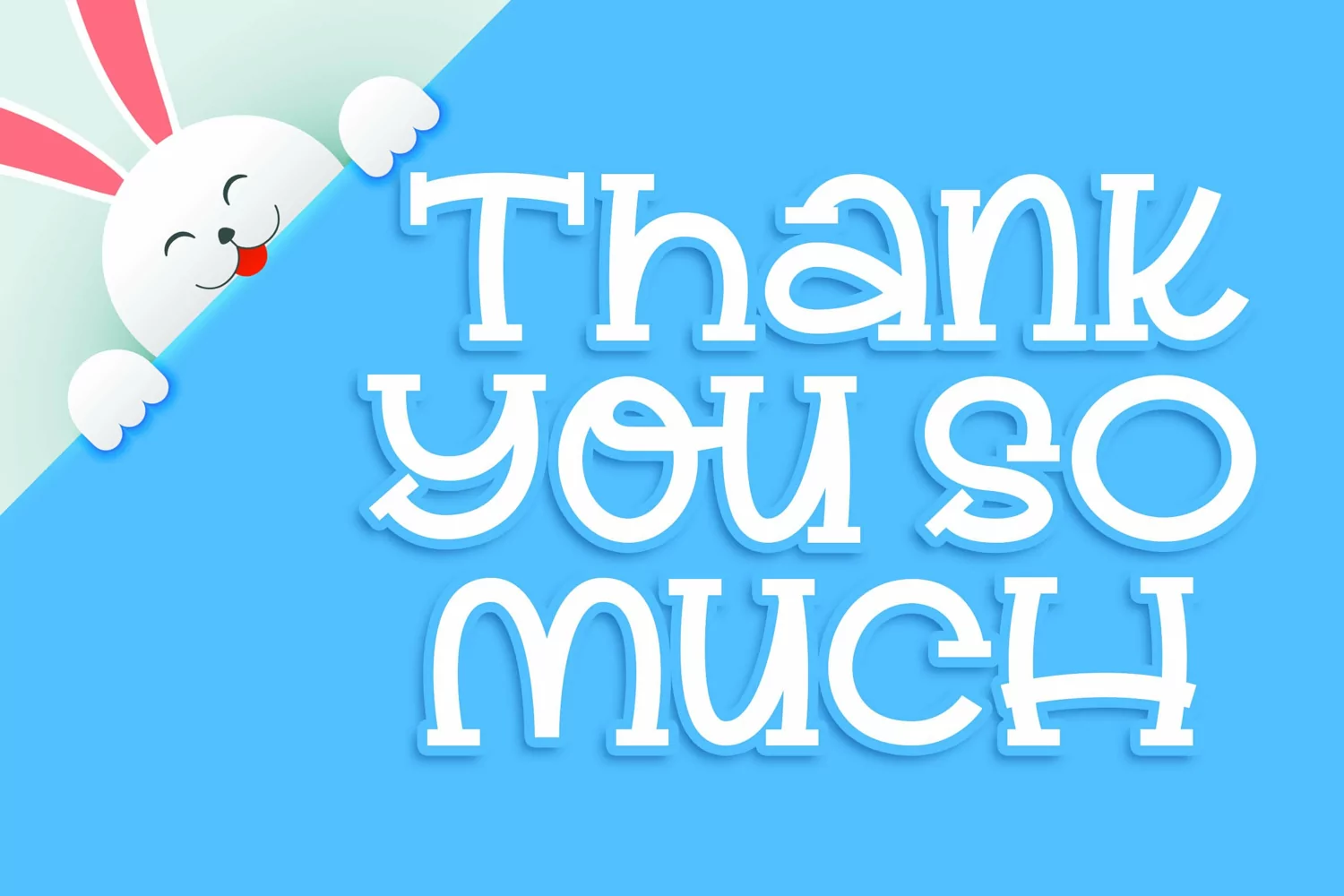
Brendy Berly a Bouncy Serif Font
Introducing of our new product the name is Brendy Berly a Bouncy Serif Font. Brendy Berly inspired by bouncy quirky this font is a fun theme very good for, book cover, poster, t-shirt, quote, logotype, craft and etc.